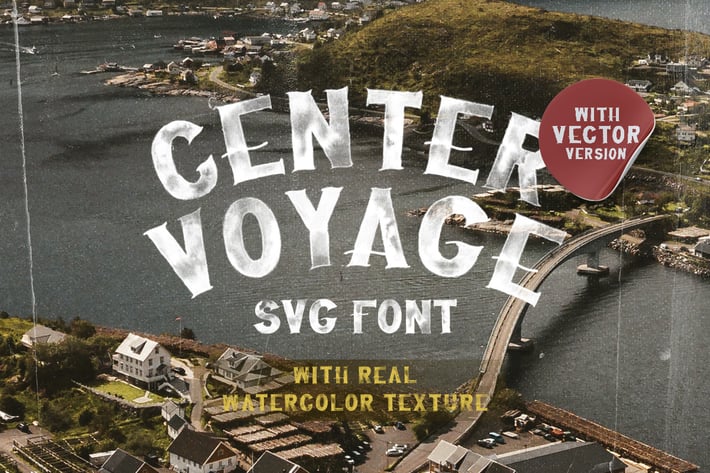
Center Voyage - SVG Font
Introducing, Center Voyage - a textured SVG Sans Serif typeface. Available in two types, solid version and transparent version. This type of font perfectly made to be applied especially in headlines which is need a standout font, and the other various formal forms such as invitations, labels, logos, magazines, books, greeting / wedding cards, packaging, fashion, make up, stationery, novels, labels or any type of advertising purpose.